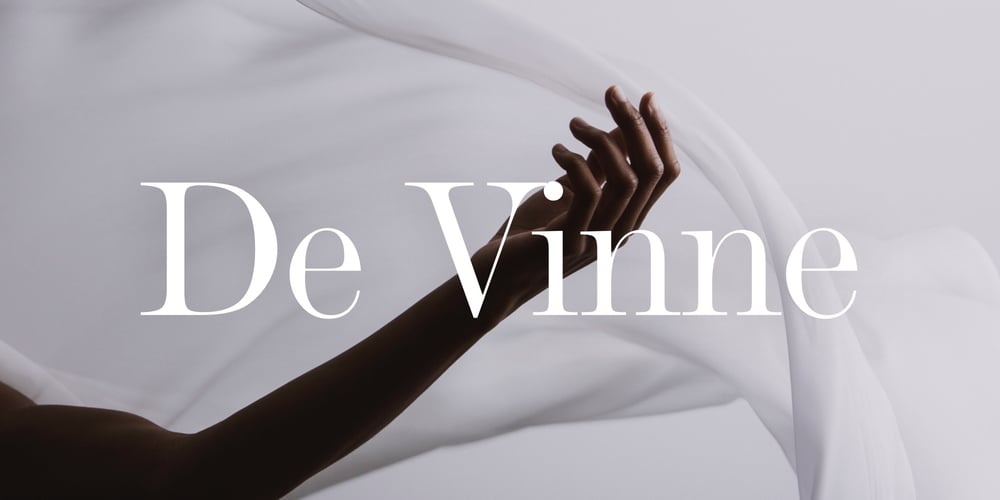
DeVinne Font Family was designed by Deberny et Peignot Design Studio and published by Linotype. DeVinne contains 1 styles and family package options. DeVinne Ornamental is a display typeface from the famous Parisian typefoundry Deberny & Peignot, developed around 1900. Its style has become synonymous with the Art Noveau period, which was raging internationally when DeVinne Ornamental’s letters were first drawn. The typeface is named after the renowned American printer Theodore Low DeVinne (1828-1914). Optimal uses for DeVinne Ornamental include headlines in magazines and newsletters.